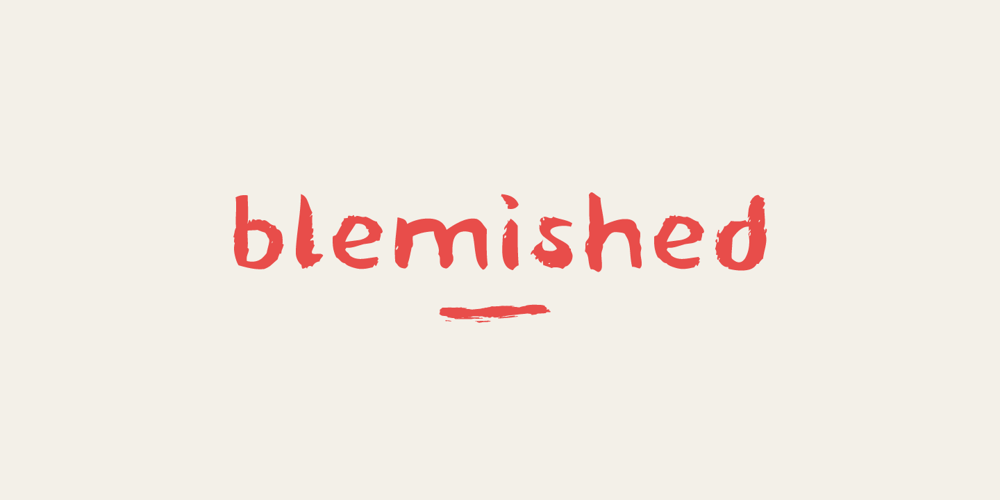
Blemished
Blemished font
Blemished Font Family was designed by Lukas Gerber and published by Luker Type. Blemished contains 1 styles and family package options. Blemished is a hand drawn brush font with a playful, yet evenly spaced look. The name blemished was chosen because of its flawed and spontaneous character, which, however, in the overall picture appears to be even and legible. The Font is equipped with Standard Characters upper and lower case, Punctuation, Numbers and some Standard Ligatures. Includes multiple multilingual support, designed by LukerType